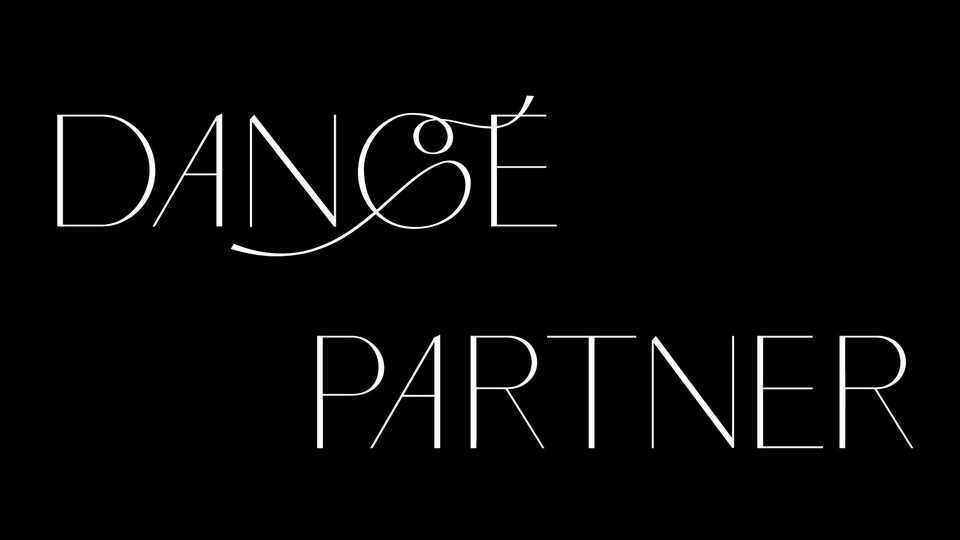
Download Dance Partner font, a display typeface that has two styles: main and alternate. The first was based on the well-known reform of the civil type of Peter the Great, the second was based on the scheme for memorizing dances of that time.
Designer: Alexandra Arsentieva